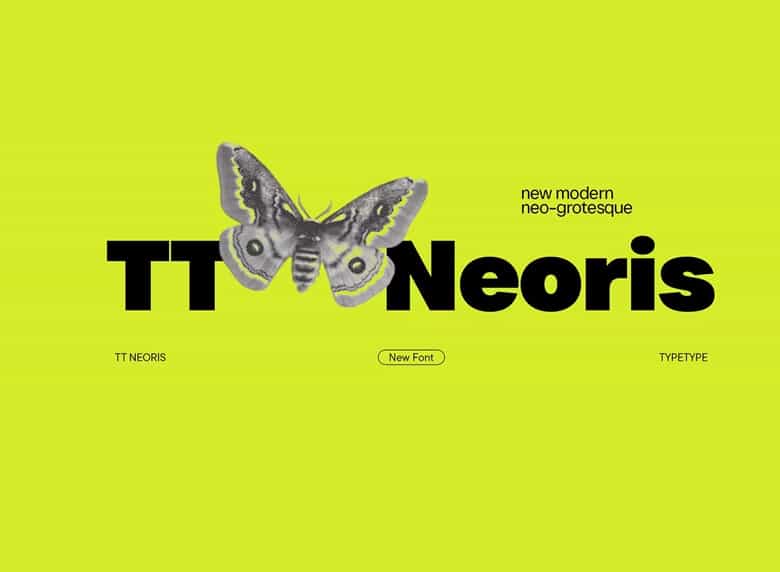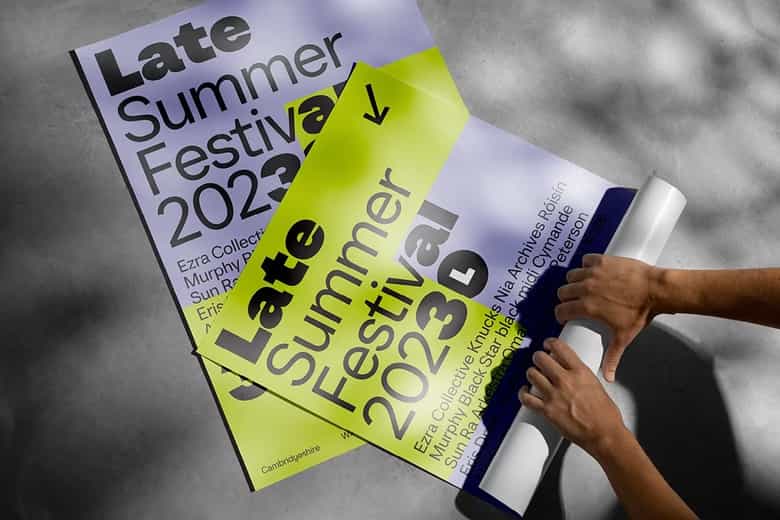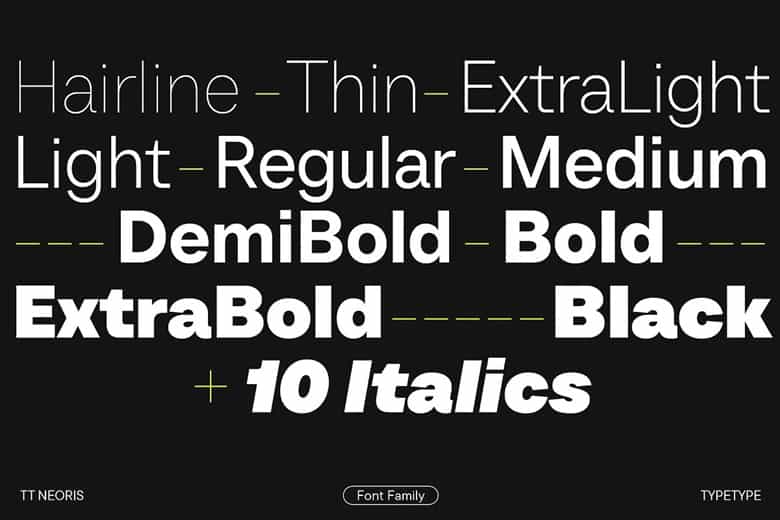
TT Neoris is a perfect NEO-GROTESK, while being unlimited, and being a font that can meet all modern needs and human expectations. A wide character set, compatibility with over 230 languages, and an extensive list of Open Type features – this typeface owns all the necessary for your design and even more! TT Neoris has been under development for two and half years. First of all, we investigated the situation on the site, as well as conducted a survey among users regarding their desires and preferences.